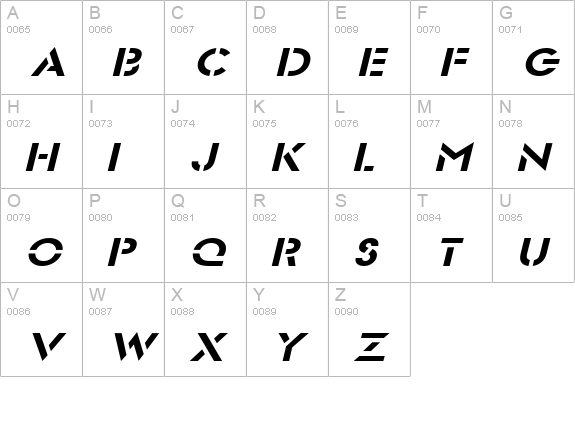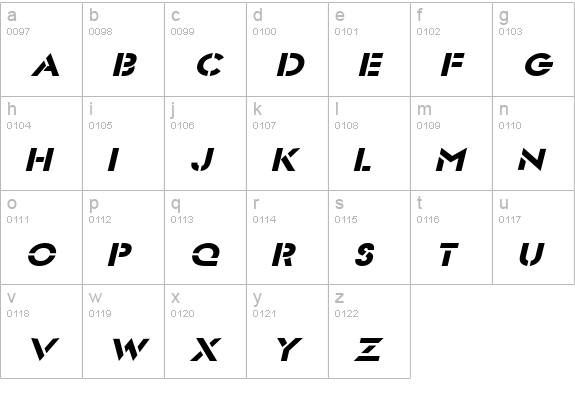
Stencil SansExtended Italic Font Details
Stencil SansExtended Italic is a distinctive, italic variant in the Stencil typeface family \xE2\x80\x94 well suited to design and typography projects.
The Stencil SansExtended Italic font is a sleek and modern typeface that exudes sophistication and elegance. Its stylish italic design adds a touch of flair to any project, making it perfect for creative and eye-catching designs. With its clean lines and contemporary feel, this font is ideal for a wide range of uses, from branding and advertising to editorial design and web content. The best part? Stencil SansExtended Italic font is completely free to download at FontsMarket.com. This means you can easily access this versatile font and incorporate it into your projects without any cost. Whether you're working on a personal project or a professional assignment, Stencil SansExtended Italic font offers a high-quality and unique typographic solution that will help elevate your design work. Download it today and let your creativity soar with this stunning typeface.